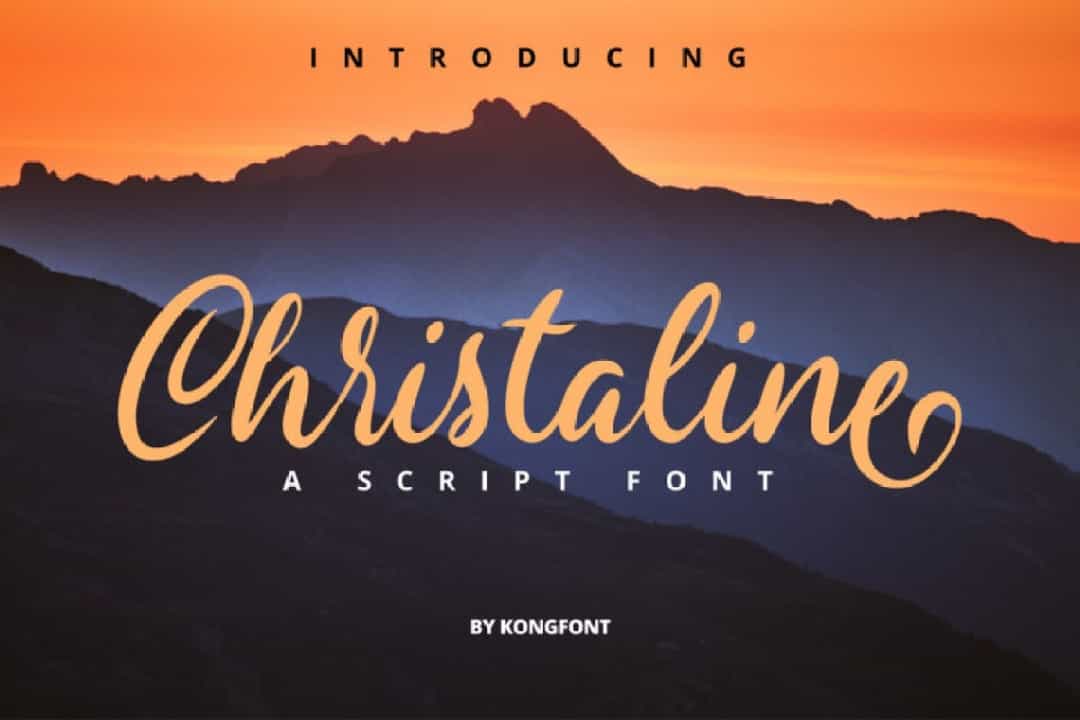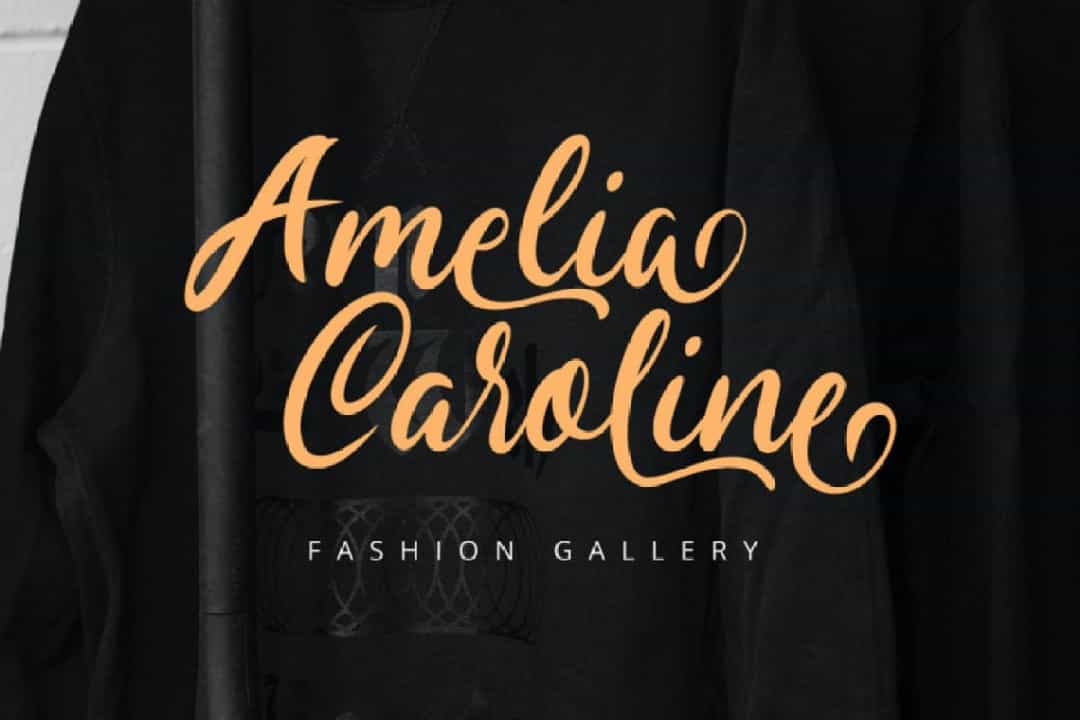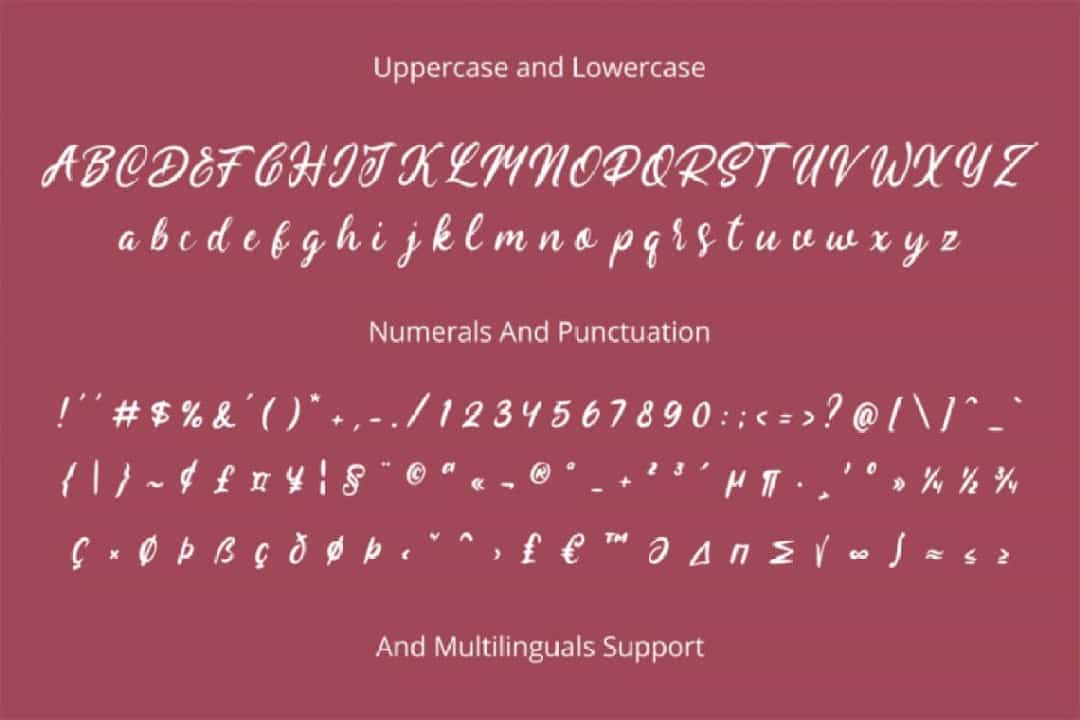
Christaline will be the perfect typeface for your designs, as this typeface is handwritten and looks elegant. It is suitable for logo branding, modern advertising design, logos, and posters, quote books/cover designs, Title of web site or blog titles T-shirts cards, etc that provides a lot of creativity in the design.